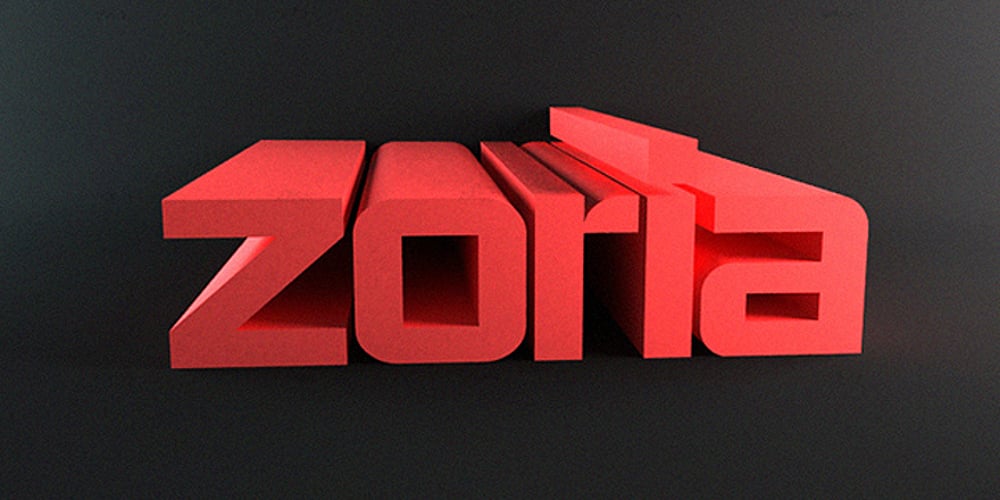
Zoria
Zoria font
Zoria Font Family was designed by Dmitry Tkach and published by samokat. Zoria contains 4 styles and family package options. Zoria is cool modern typeface, designed by samokat during May 2010.